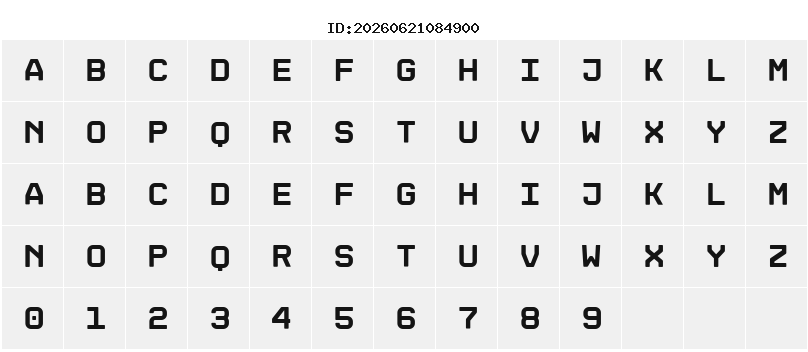
• Font Name: Disket Mono
• Full Font Name: Disket Mono Bold
• Designer: Mariano Diez
• Manufacturer: Mariano Diez
About Disket Mono.ttf
Disket Mono.ttf is a modern, elegant sans-serif font designed for ultimate readability and visual harmony. Perfect for branding, headlines, web design, and print materials.